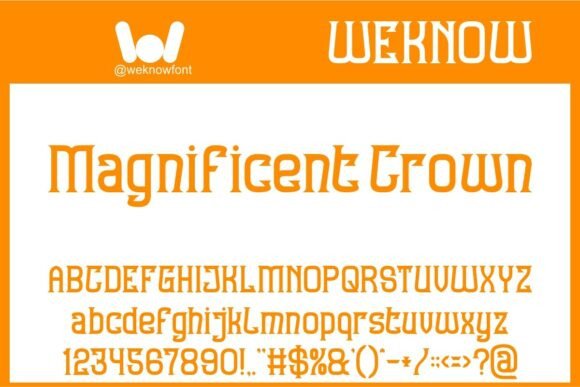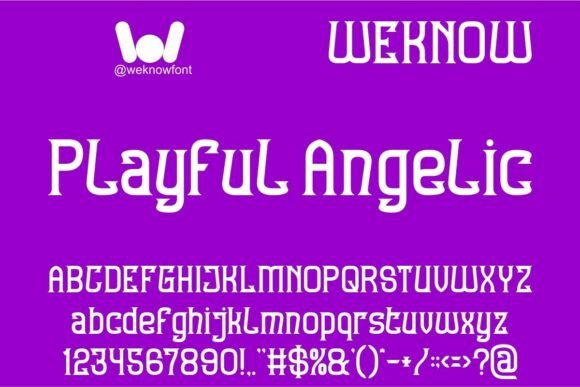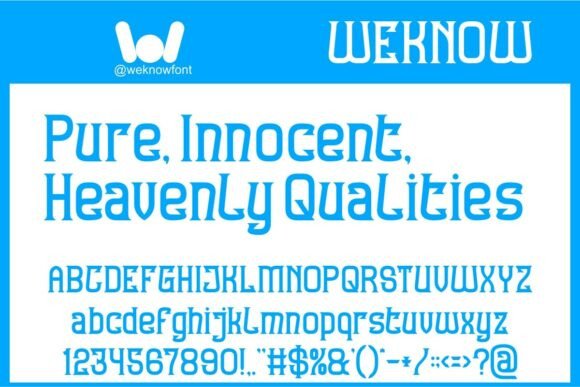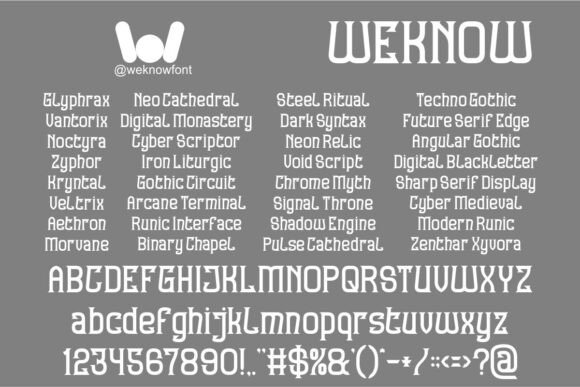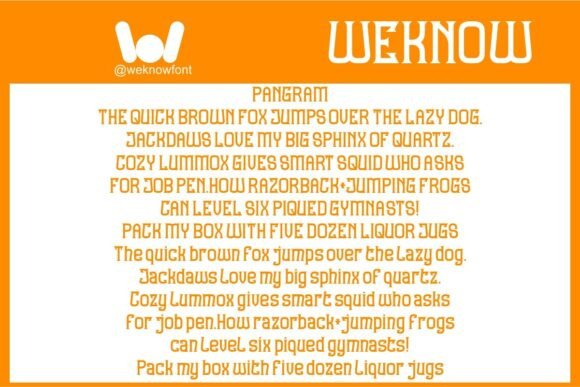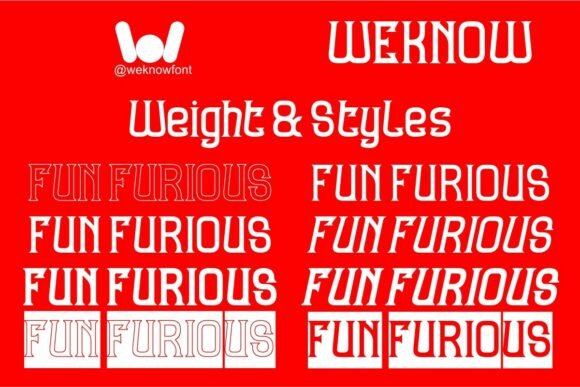
The Ultimate Design Game-Changer: Fun Furious Font
I’ll never forget the time I was working on a branding project for a Gothic-inspired fashion label. My client wanted a font that would scream personality, but I was stuck in a design rut. That’s when I stumbled upon the Fun Furious Font – a game-changing blend of decorative Blackletter and contemporary Gothic elements. It was love at first sight! 💕
- ✨ High contrast, angular design that adds a touch of drama to any project
- ✅ Modern stylized serif that lends itself to creating head-turning visual experiences
- 💯 Exquisite melange of past and future, perfect for designers looking to make a statement
- 🎉 Perfect for branding, headline design, logotypes, or corporate identities
While I adore the Fun Furious Font, there are a few things to keep in mind: 🤔
- ⚠️ Limited legibility at small font sizes – best used for headlines or titles
- ⚠️ May not be suitable for body text or long-form content
- Experiment with OpenType features, such as glyphs and stylistic alternates, to add personality to your text
The story behind Fun Furious Font is shrouded in mystery, but rumor has it that the designer was inspired by the dark, Gothic architecture of medieval Europe. They wanted to create a font that would capture the essence of this era, while still feeling modern and fresh. And so, the Fun Furious Font was born! 🎨
Q: What type of projects is Fun Furious Font best suited for?
A: Fun Furious Font is perfect for branding, headline design, logotypes, or corporate identities that require a bold, eye-catching font.
Q: Can I use Fun Furious Font for body text or long-form content?
A: While Fun Furious Font is stunning, it’s not recommended for body text or long-form content due to limited legibility at small font sizes.
Q: Is Fun Furious Font available in different weights or styles?
A: Yes, Fun Furious Font comes in various weights and styles, allowing you to experiment with different looks and feels.